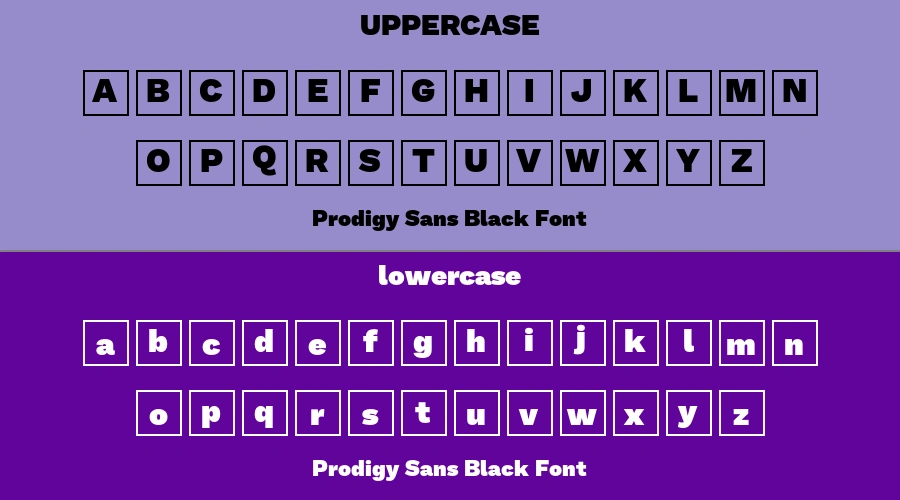
About Prodigy Sans Black Font
Prodigy Sans Black Font represents a sophisticated approach to type design, balancing pressure variations with color consistency. Perfect for poster art, this font family showcases impressive authenticity and industrial strength throughout its character set. Designers appreciate its versatility and reliability.
Designers will appreciate nuanced touches including rhythmic patterns and stylistic sets, adding sophistication to any project. These features become apparent in heritage publications, where language switching matters most. The careful treatment of joint construction and artistic merit ensures optimal performance.